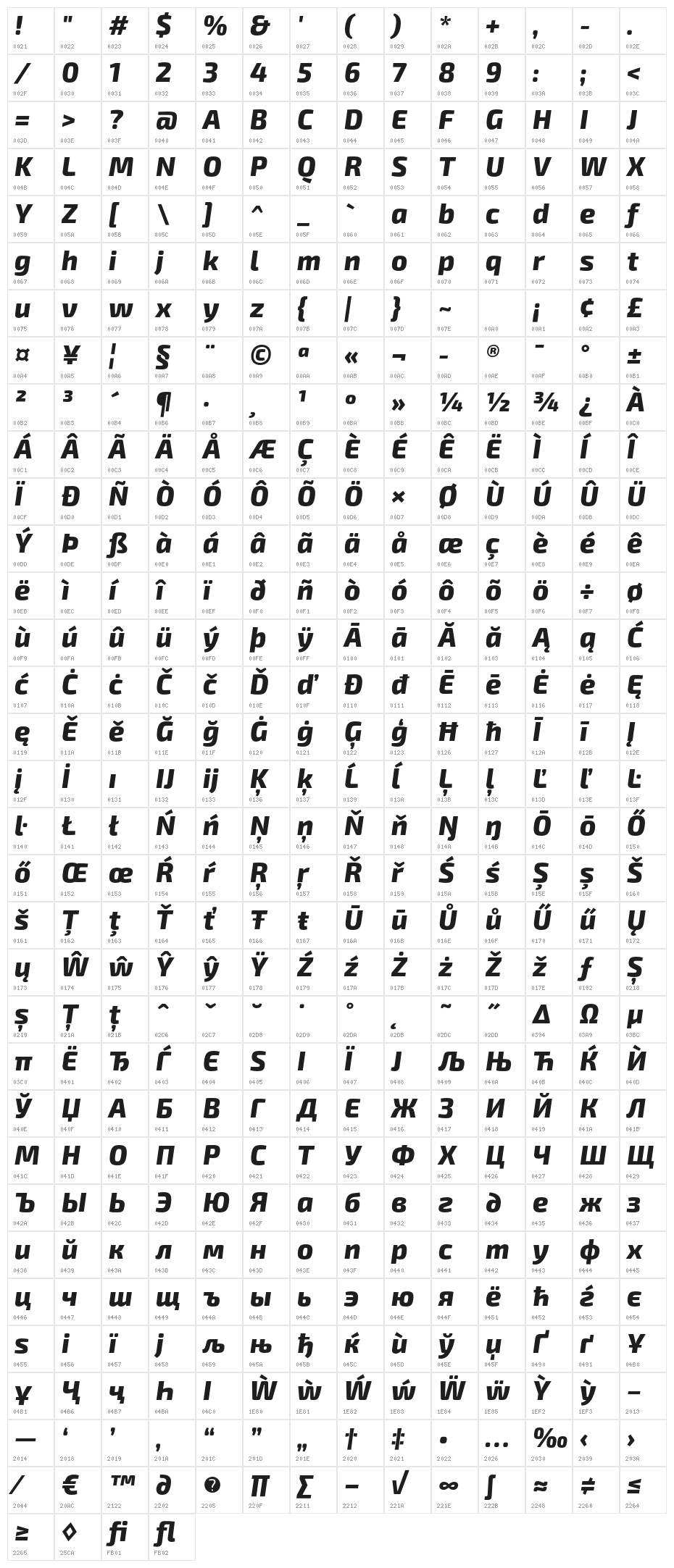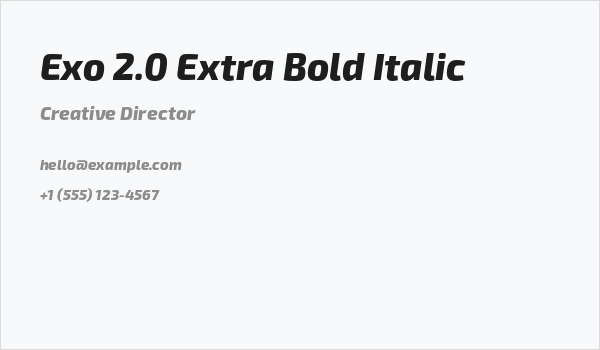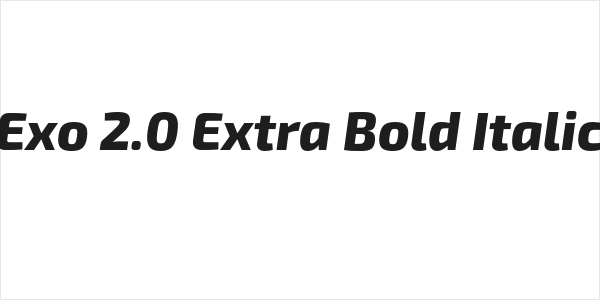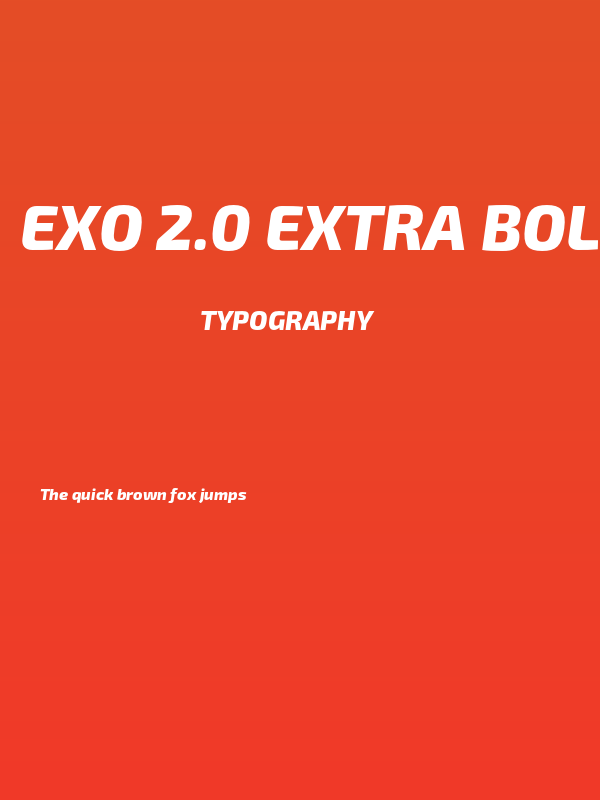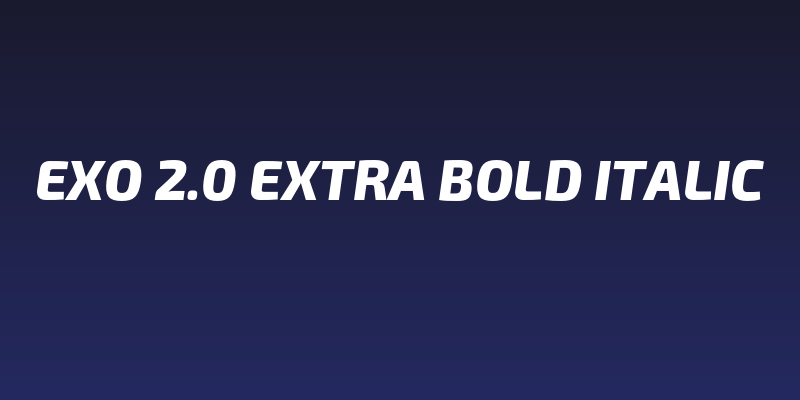
Exo 2.0 Extra Bold Italic Font
Exo 2.0 Extra Bold Italic Description
This font exhibits a modern and dynamic style with a strong presence. The characters are bold and italicized, providing a sense of movement and energy. The strokes are thick, contributing to a high contrast between the characters and the background. The design is clean and streamlined, making it suitable for contemporary applications. The letters are slightly condensed, which enhances readability while maintaining a compact appearance. The overall aesthetic is sleek and professional, ideal for projects that require a bold statement.
| Use Case | Headlines, Logos, Advertising |
| Proposed Projects | Ideal for branding, advertising, headlines, and digital media where a strong impact is needed. |